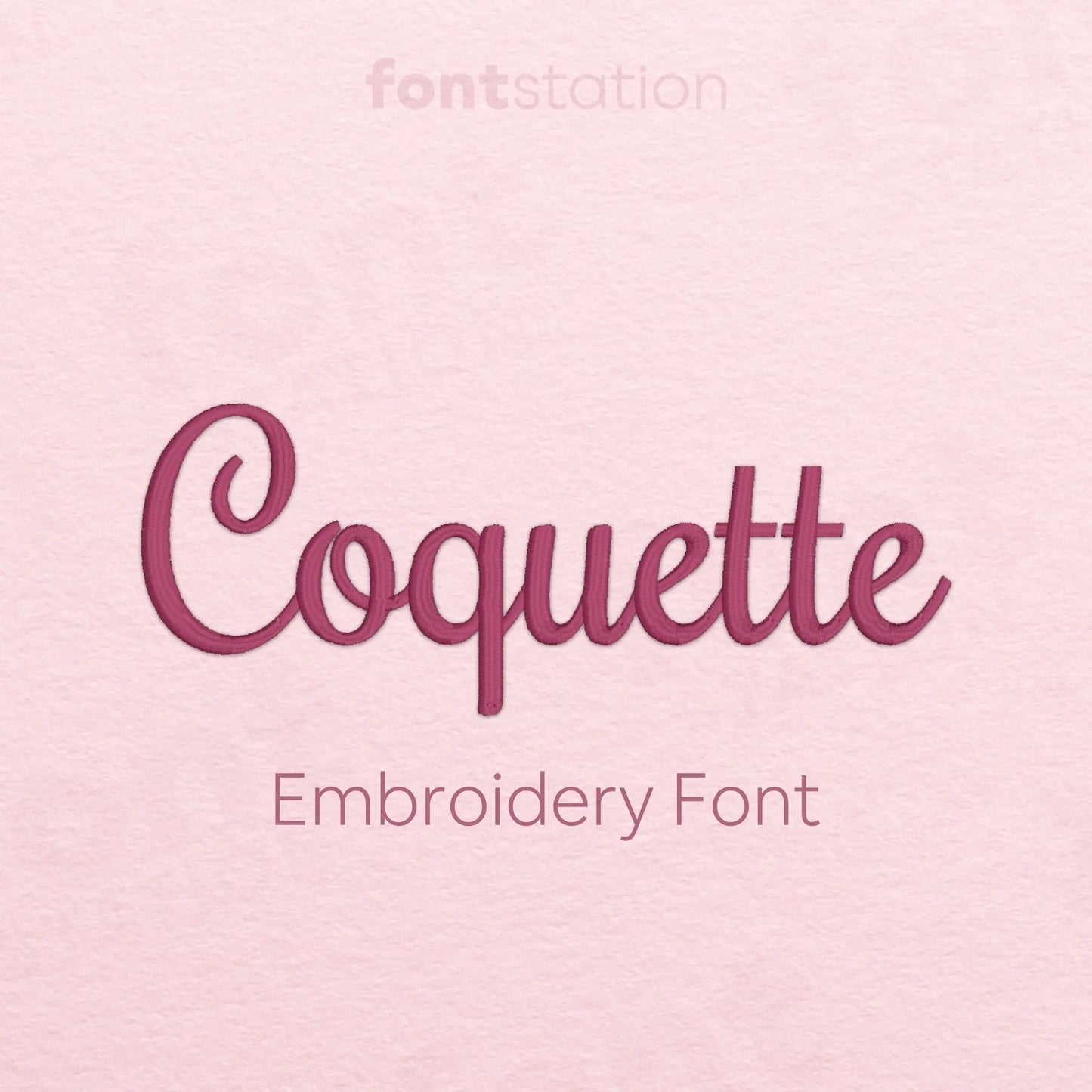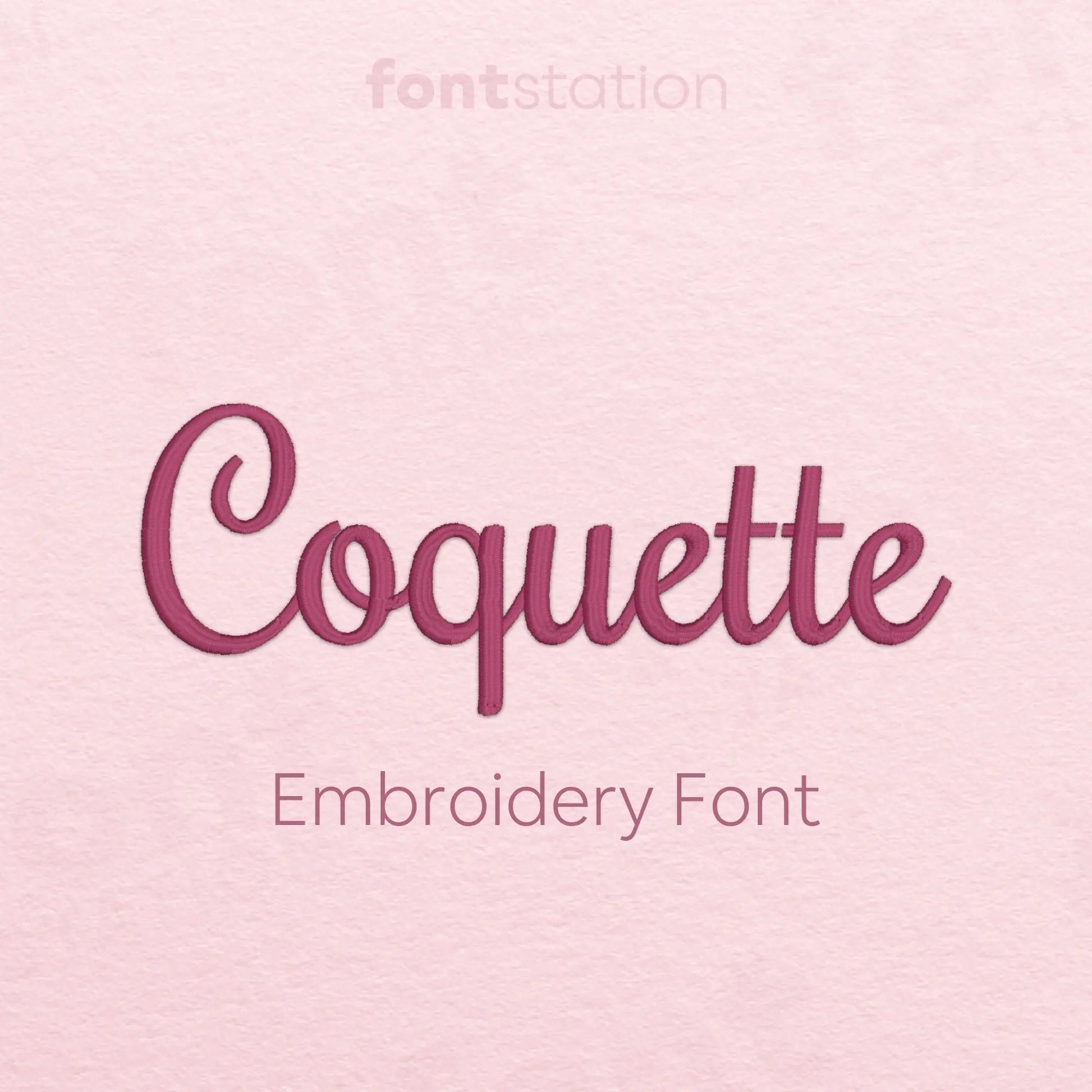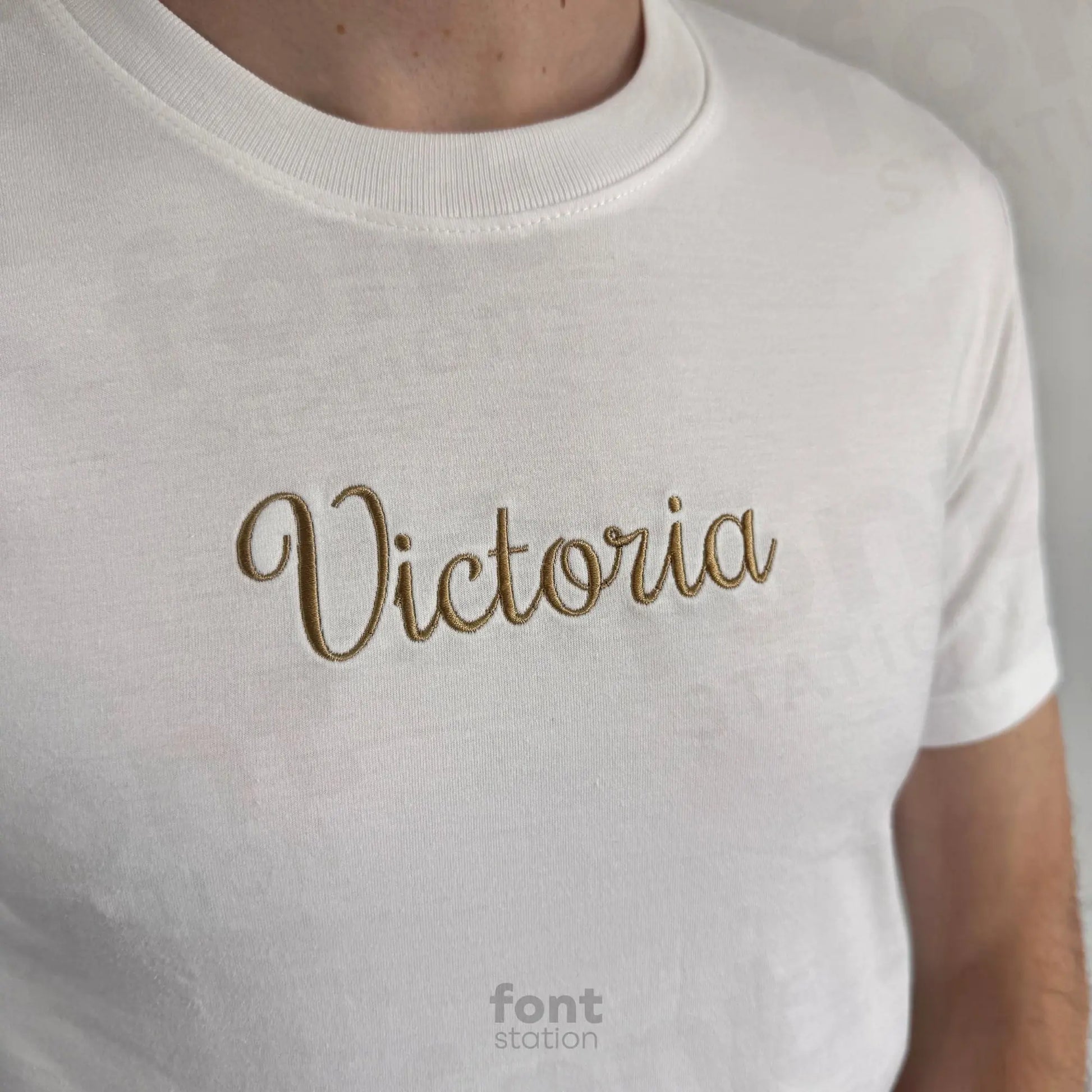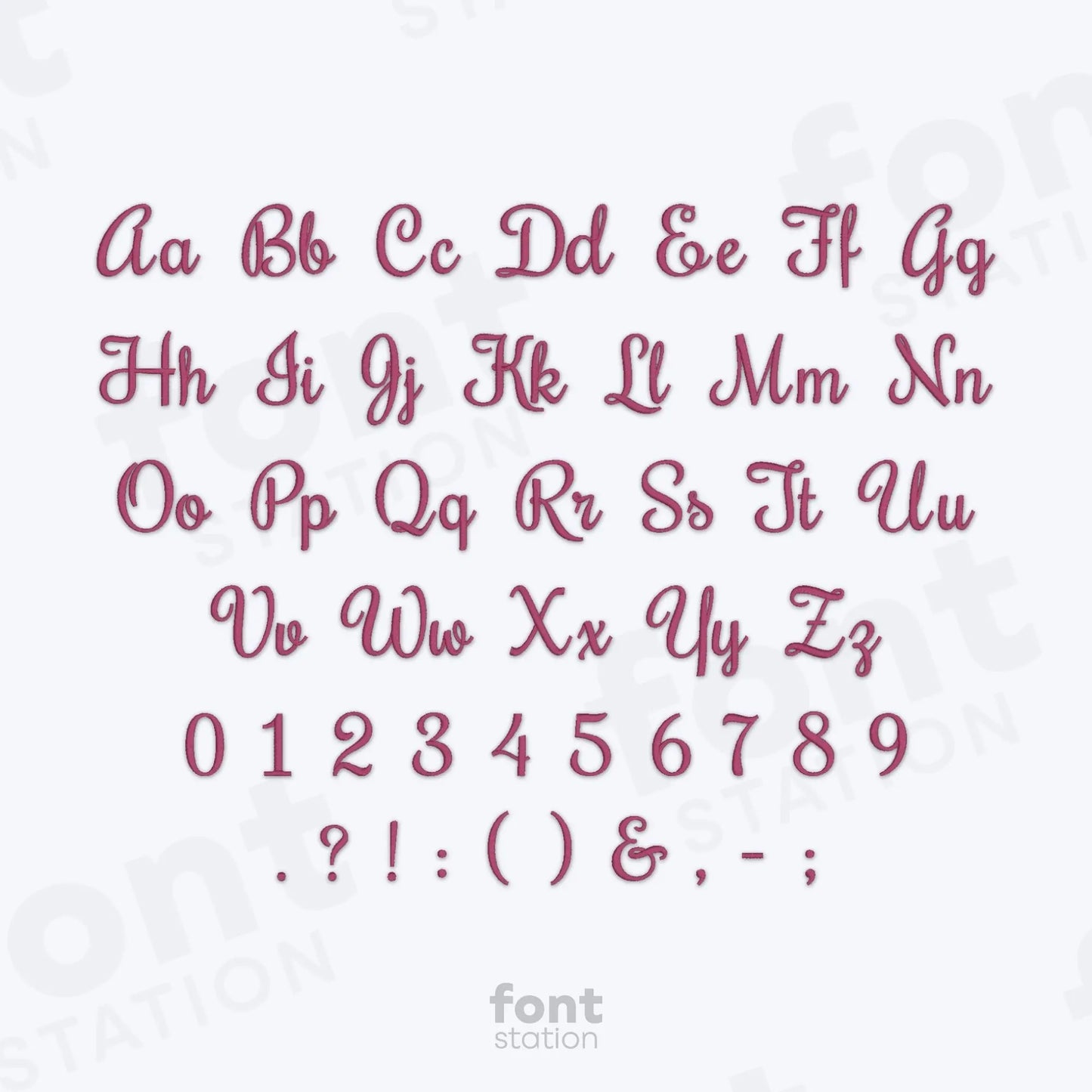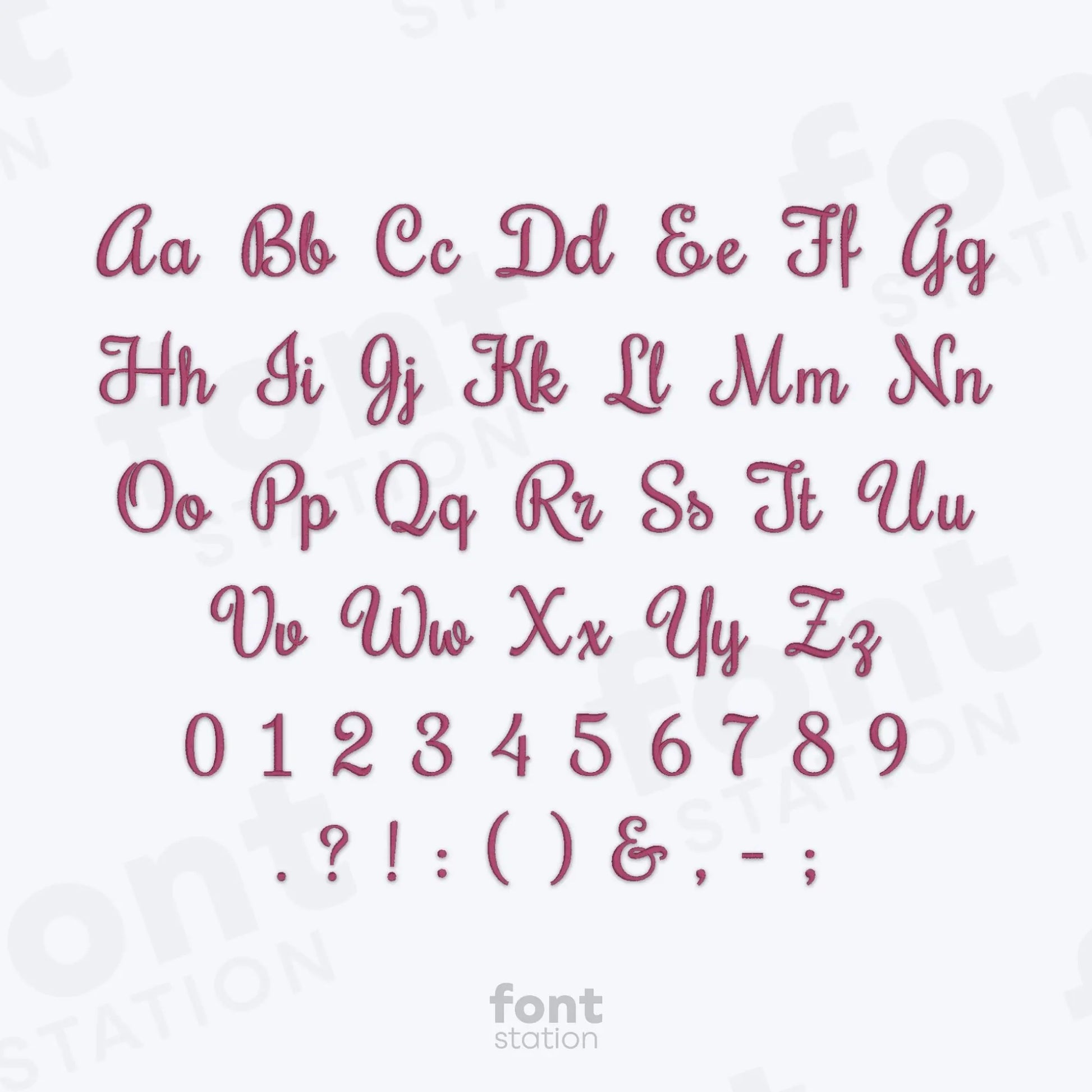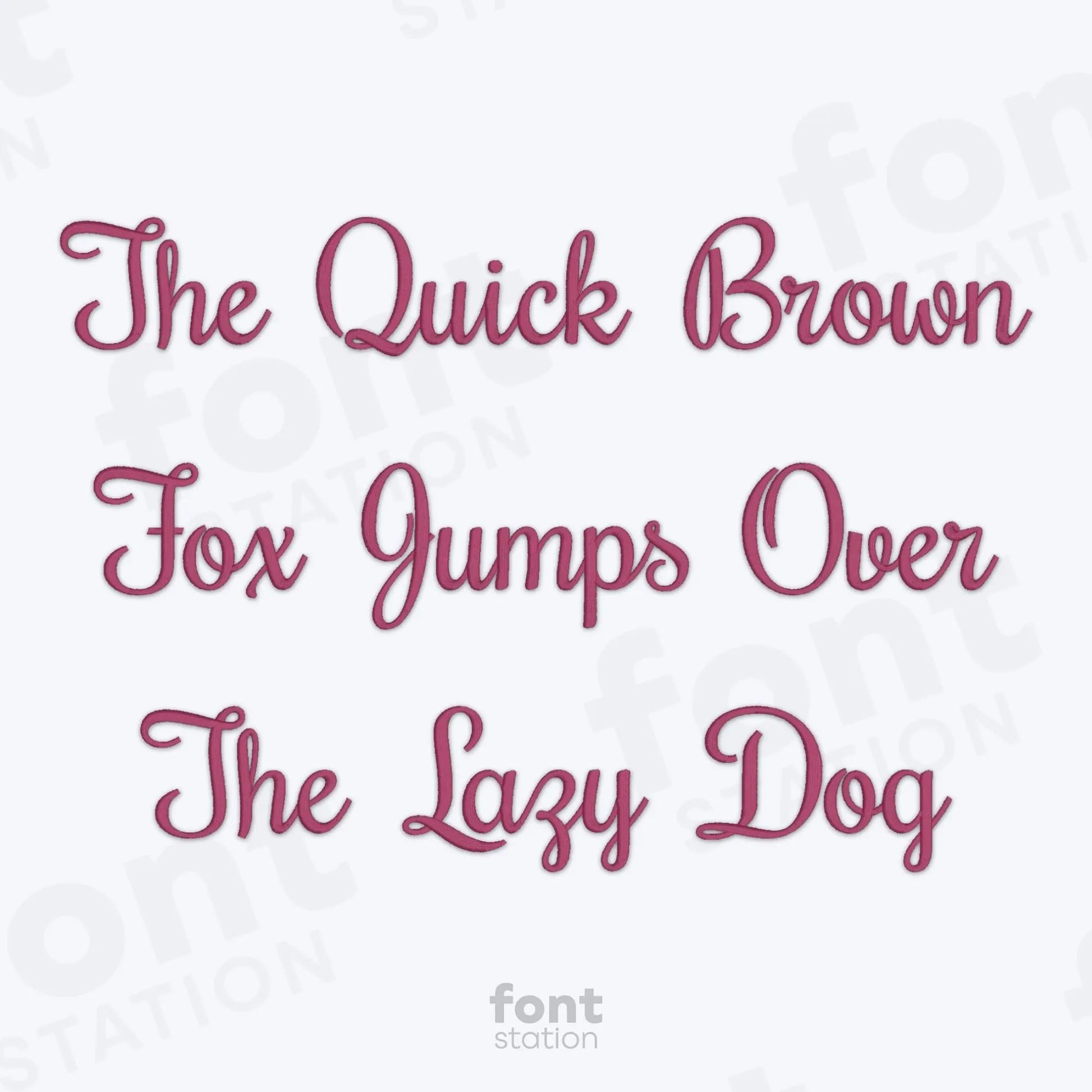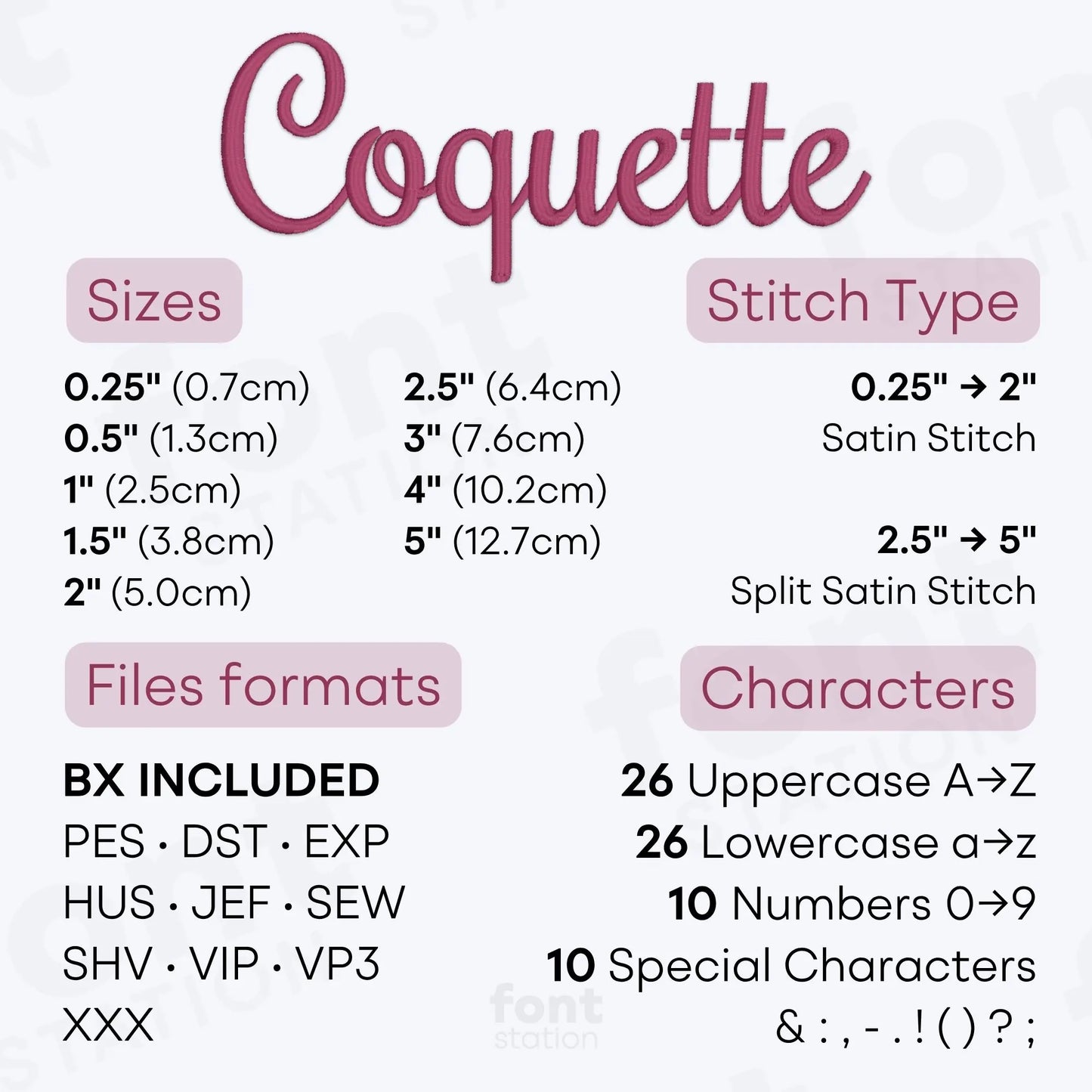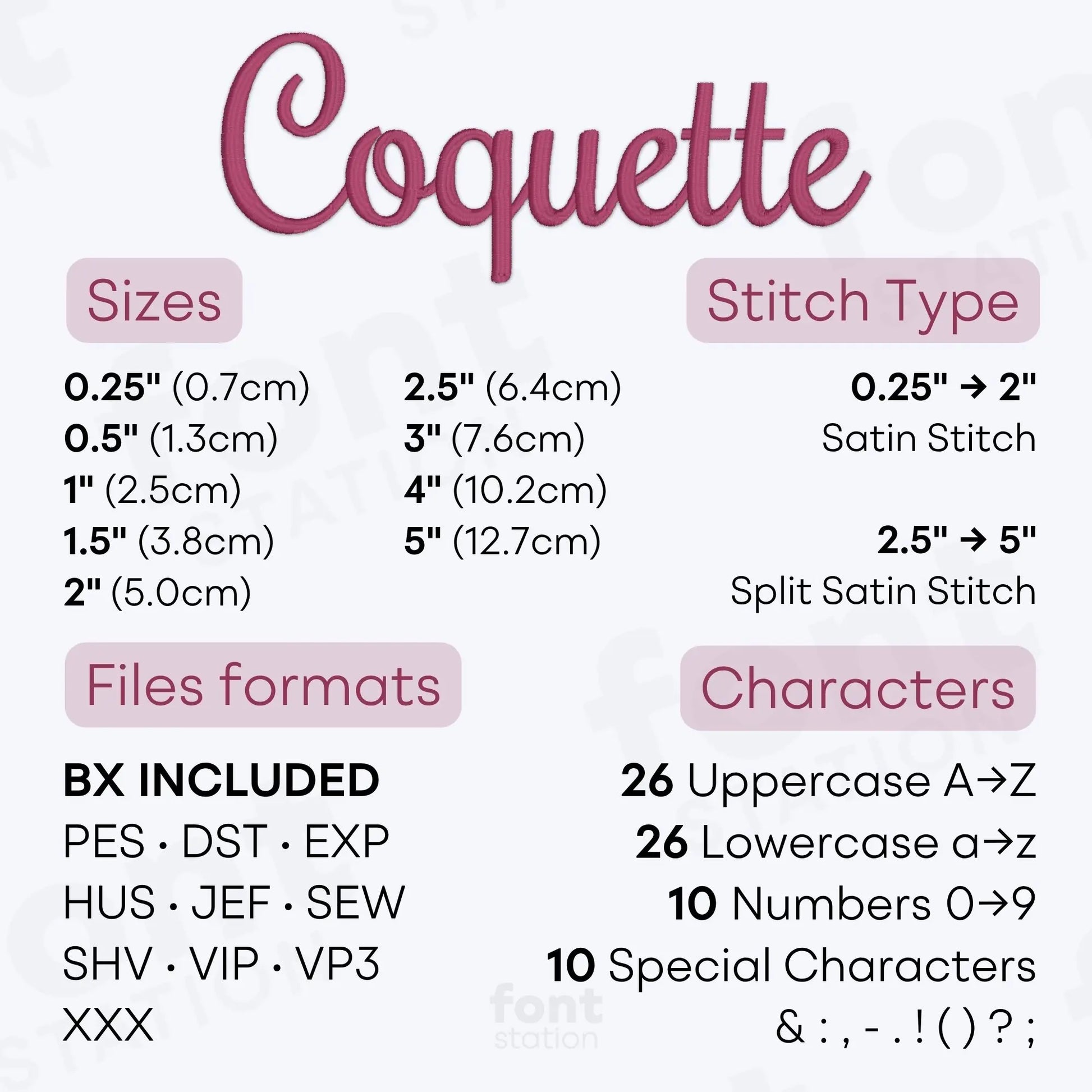
Coquette Embroidery Font
Introducing our Coquette embroidery font, a fancy cursive alphabet with elegant letters that add charm to every project. Ready to stitch with your embroidery machine, it helps you create beautiful personalized designs with graceful, flowing results.
About the Coquette Embroidery Font
Characters: 26 uppercase, 26 lowercase, 10 numbers et symbols & : , - . ! ( ) ? ;
Our Coquette embroidery font brings a fancy cursive style with elegant lettering to your embroidery projects.
This beautiful machine embroidery font features a graceful alphabet with flowing, decorative letters that add charm and sophistication to every creation. Perfect for monograms, wedding gifts, baby items, clothing, tote bags, home décor, and personalized embroidery designs, it creates a refined, handcrafted look you'll love.
Why choose our Fancy Cursive Embroidery Letters?
• Professional Quality: Each character has been expertly digitized to ensure clean, crisp stitching and excellent embroidery results.
• Versatility: Our font is suitable for a wide range of embroidery projects, from apparel and accessories to home decor and gifts.